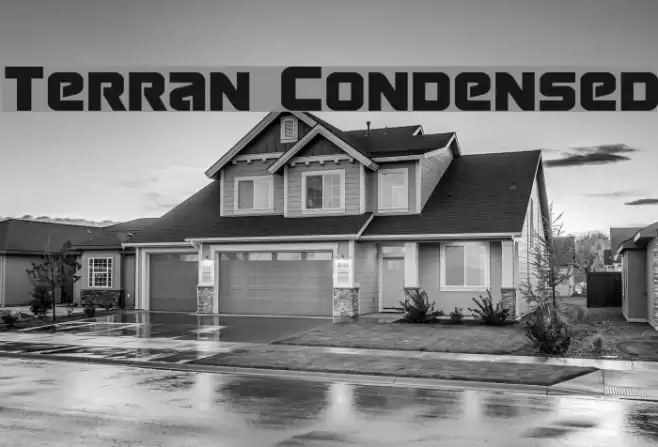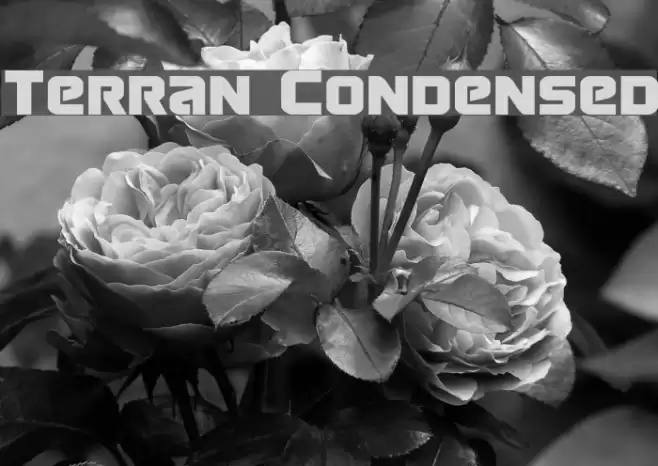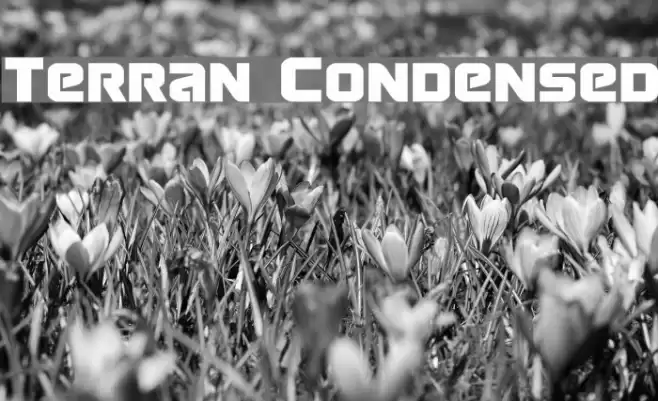
Terran Condensed Font
Terran Condensed Description
This font features a bold and striking design with a futuristic and geometric aesthetic. The characters are condensed, giving them a compact and efficient appearance. The angular and blocky shapes of the letters create a strong visual impact, making it suitable for attention-grabbing headlines and titles. The uniformity in stroke width across the characters contributes to a cohesive and modern look. The font's design is reminiscent of digital or sci-fi themes, with a clean and structured form that enhances readability while maintaining a distinctive style.
A bold, futuristic, and geometric condensed font ideal for impactful headlines from Uncategorized fonts.
- Proposed Projects: Ideal for sci-fi movie posters, video game titles, tech branding, and futuristic-themed designs.